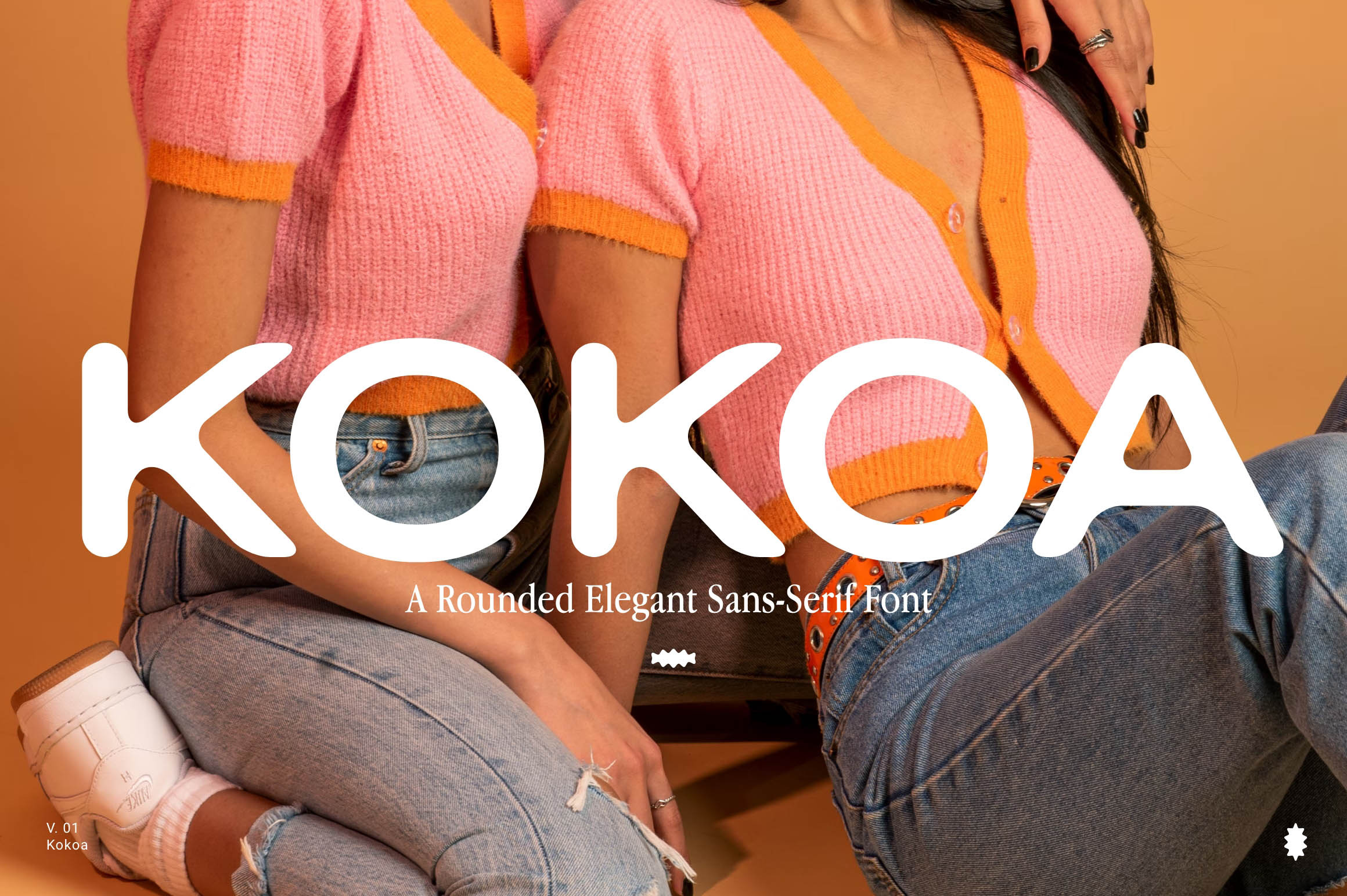
Kokoa Font
Say hello to Kokoa, the font that will add a touch of fun and playfulness to your designs. Kokoa is a sans-serif font with a rounded look that exudes a natural, friendly vibe.
With its clean lines and balanced proportions, Kokoa is perfect for a variety of design projects, from logos and branding to social media graphics and packaging. Its rounded edges and soft curves give it a natural and approachable feel, while its bold, strong appearance makes it a great choice for titles and headlines.